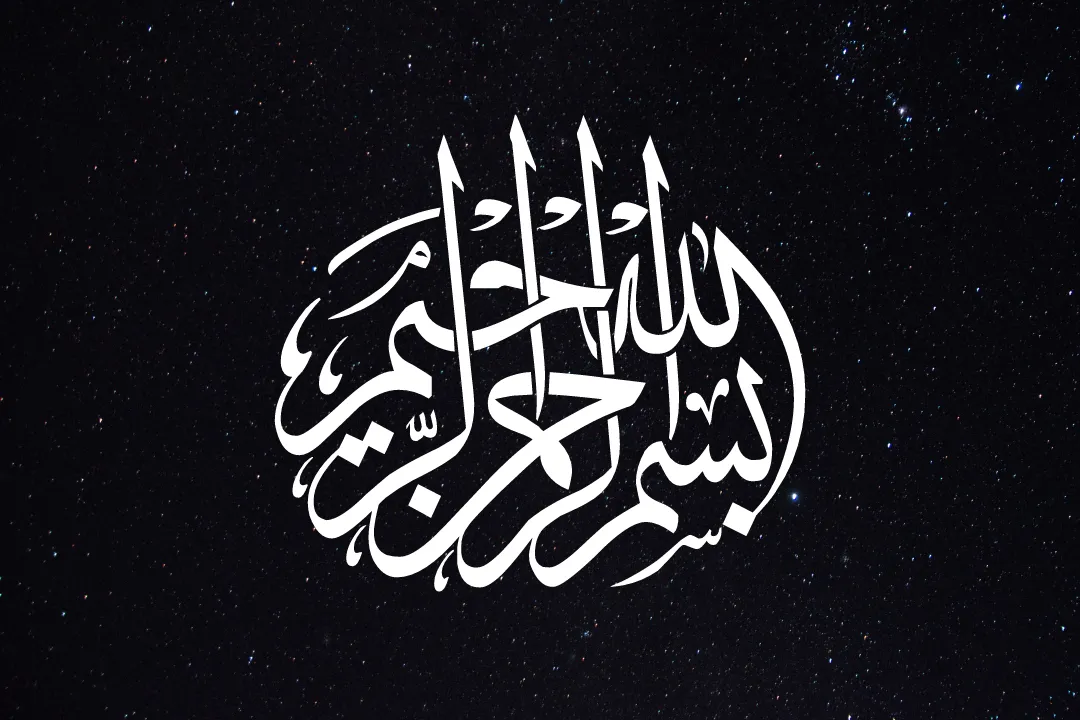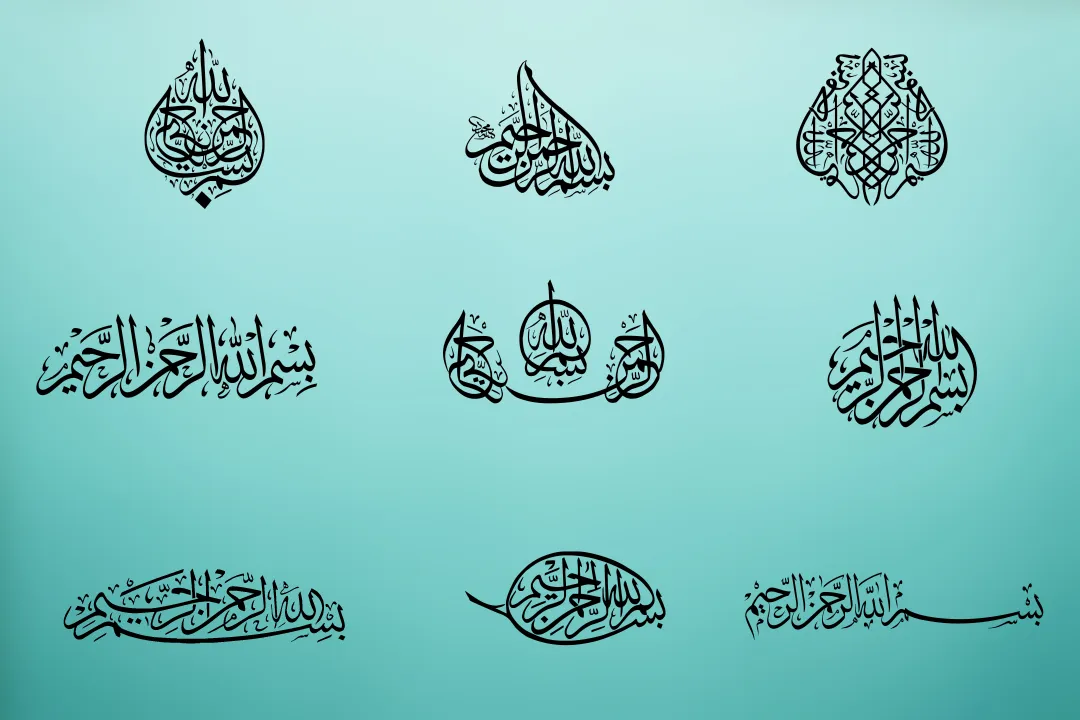
Bismillah Font
Today, we present a very well-famed Arabic calligraphy texture known under the name Bismillah Font. David Sum is the main and original creator of this family. The texture is famous because of its classic styles, as well as its weight.
Its curves and corners make this family attractive and classic. The copy-and-paste function of this typography is best for various designs and especially for graphic designs. Its letters and literature make this family more attractive.
The online tool known as the generator tool is best for various designs.  If you want to achieve the best results from your clients then use this typography. This texture has its own look that is strange and differs from all other textures.
Uses of Bismillah Font
All graphics, as well as web designers, use this typography for a lot of plans and themes. If you are an expert designer then you should utilize this font family according to your desire. In video thumbnails, editing of different videos, and painting designs this family is very effective and classic. Once you will have to use it then notice its classic and attractive results.
By making a strong pairing of Allright font with this family you will achieve more fascinating results. You can also use this typography for posters and brochure designs. In gaming logos designs, infographics, and calligraphy painting themes this typeface is well-suitable.
What is the category of Bismillah Font?
This stunning texture falls in the classifications of the Arabic calligraphy family of fonts.
Who is the original designer of Bismillah Font?
David Sum is a brilliant mind designer who is the creator of this texture.
Is Bismillah Font best for painting designs?
Yes, sure you can use it in all of your paintings as well as graphic designs without any problems or difficulties.